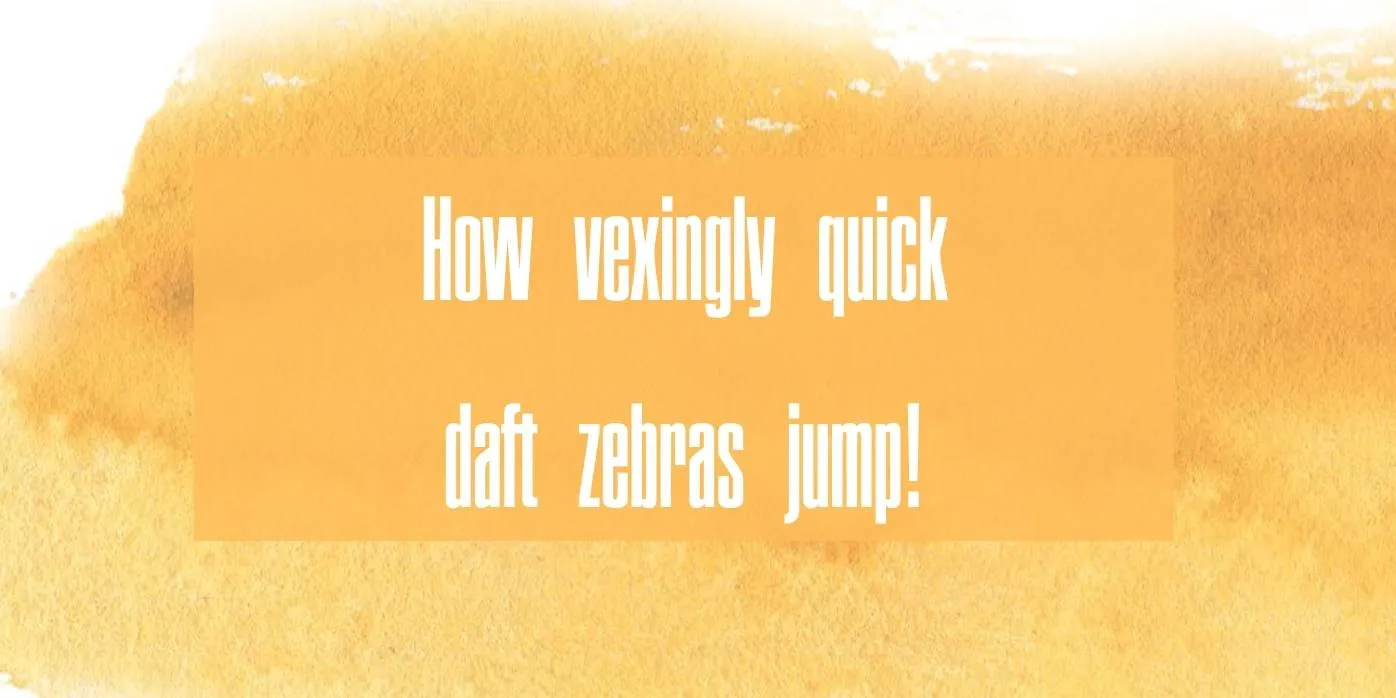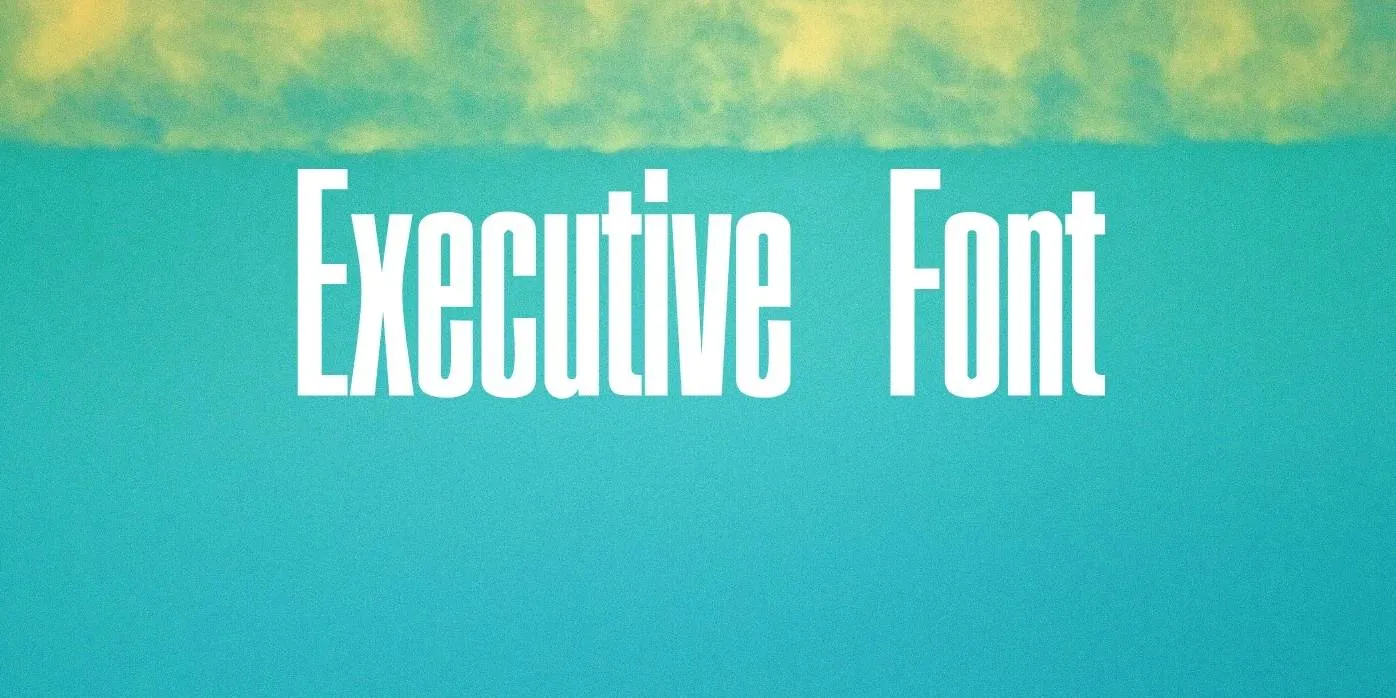
Executive Font
Executive font Is one of the most popular typefaces that belongs to the Sans-Serif Fonts. This stunning typeface was designed by two famous designers named Rust and other is Gavillet. It was released by the Swiss Studio. It is best for CSS Family and was released in the year 2007.
One best thing about this typeface is that its thin and thick strokes are available with high Contrast. This stylish typeface comes in 10 popular styles. Also, it includes more than 6 amazing weights. Its weights are Bold, Italics, and different others.
Its copy and paste are perfect for various designs. Didact Gothic Font is perfect for various designs. Its high legibility makes it possible for body text and different designs. To make this stunning font more classic this typeface will have to add different weights.
These weights are increasing their power.